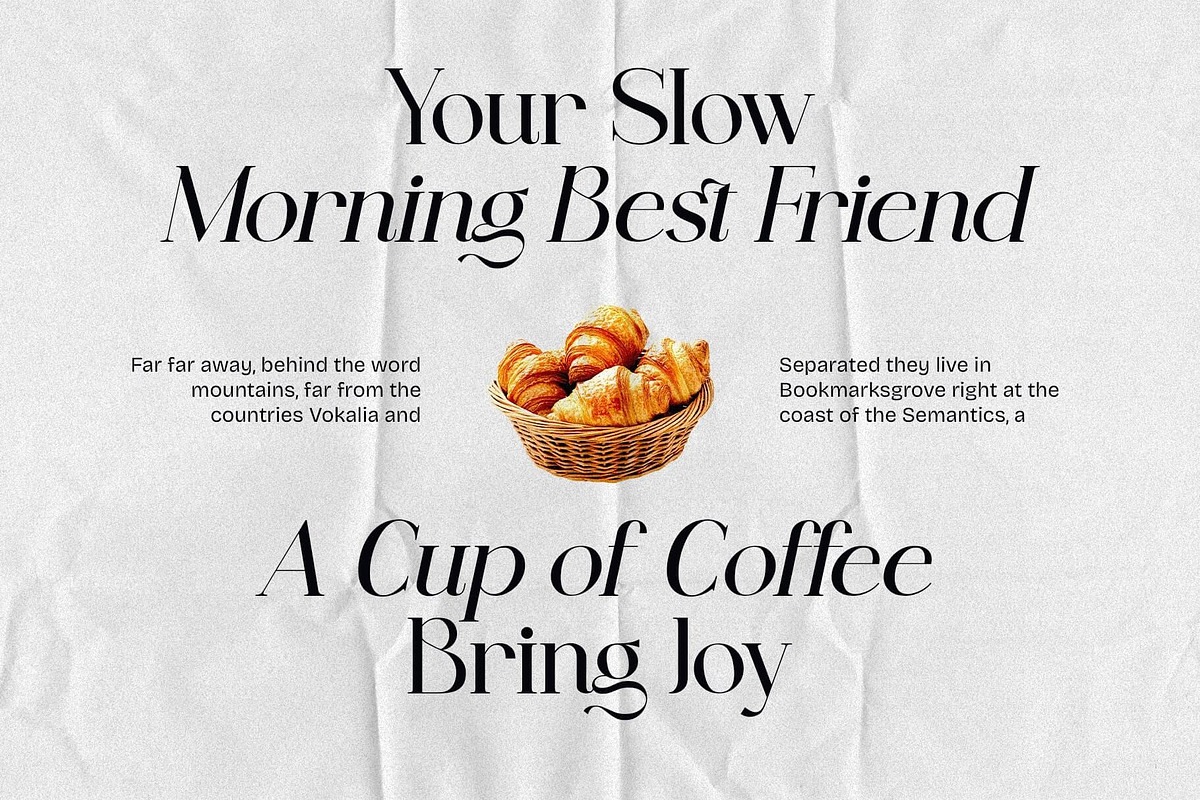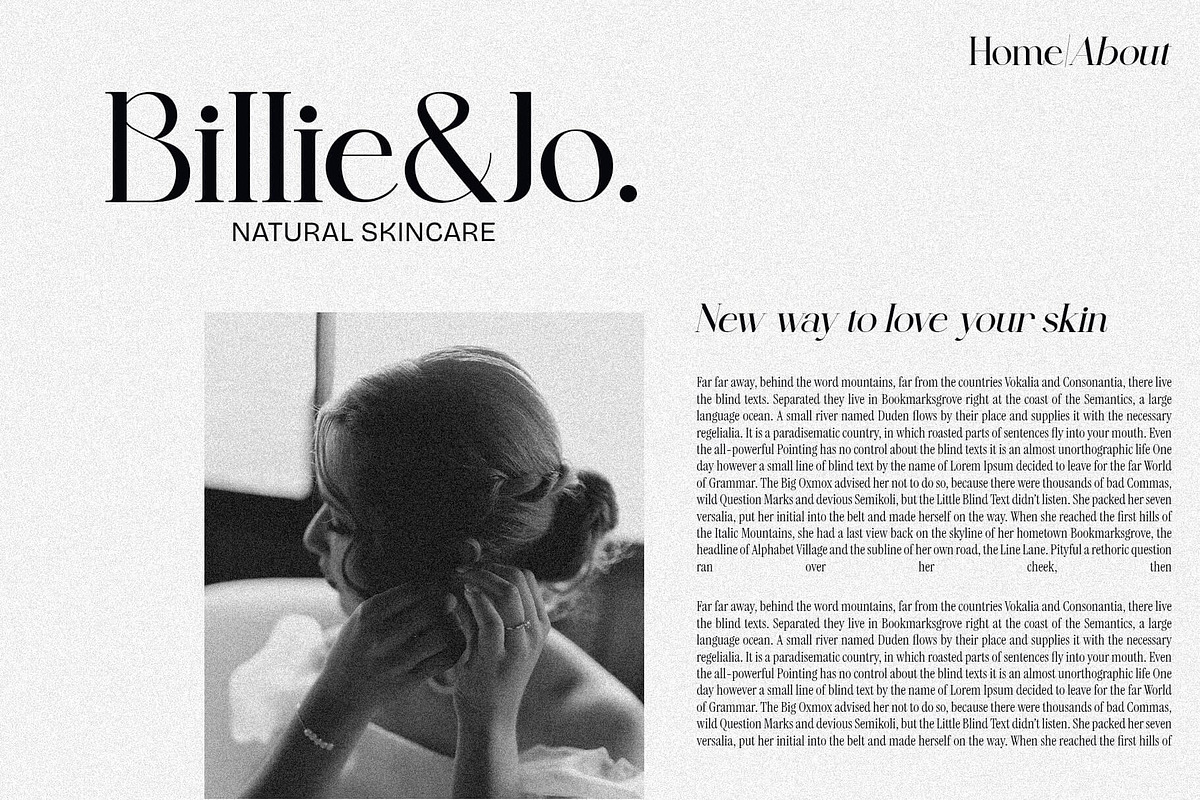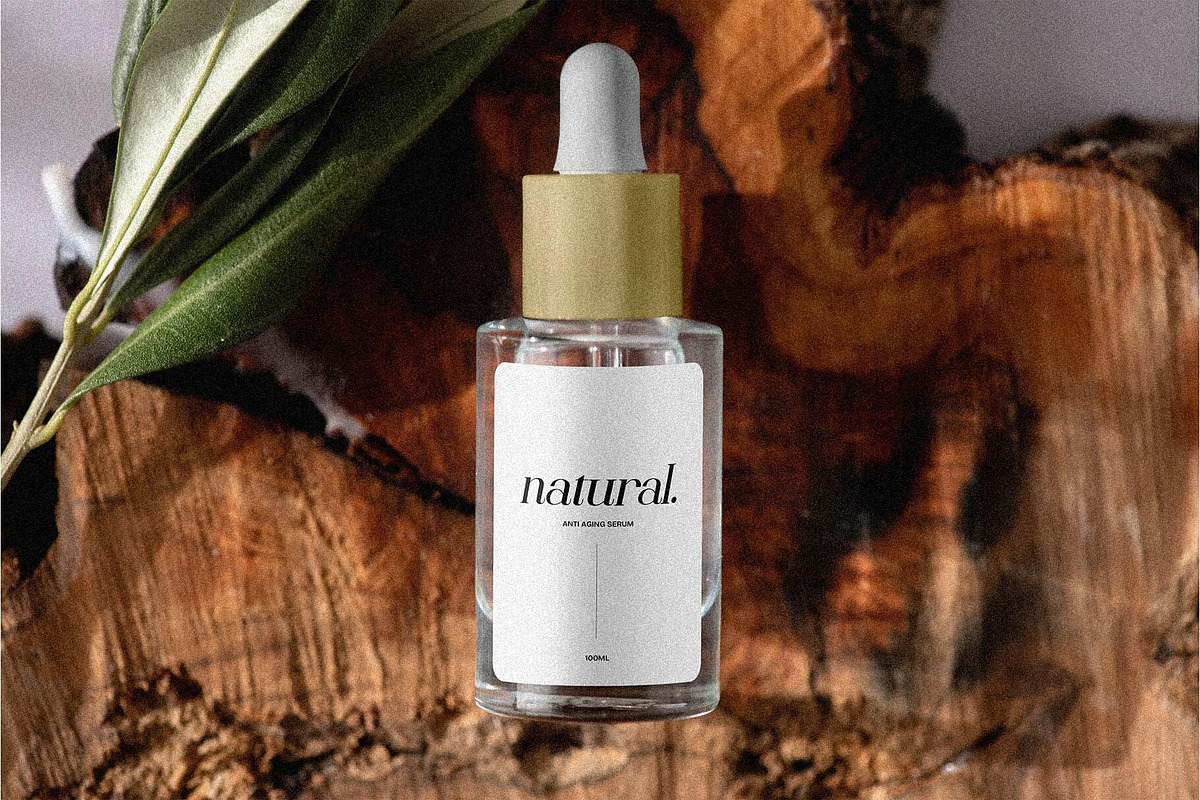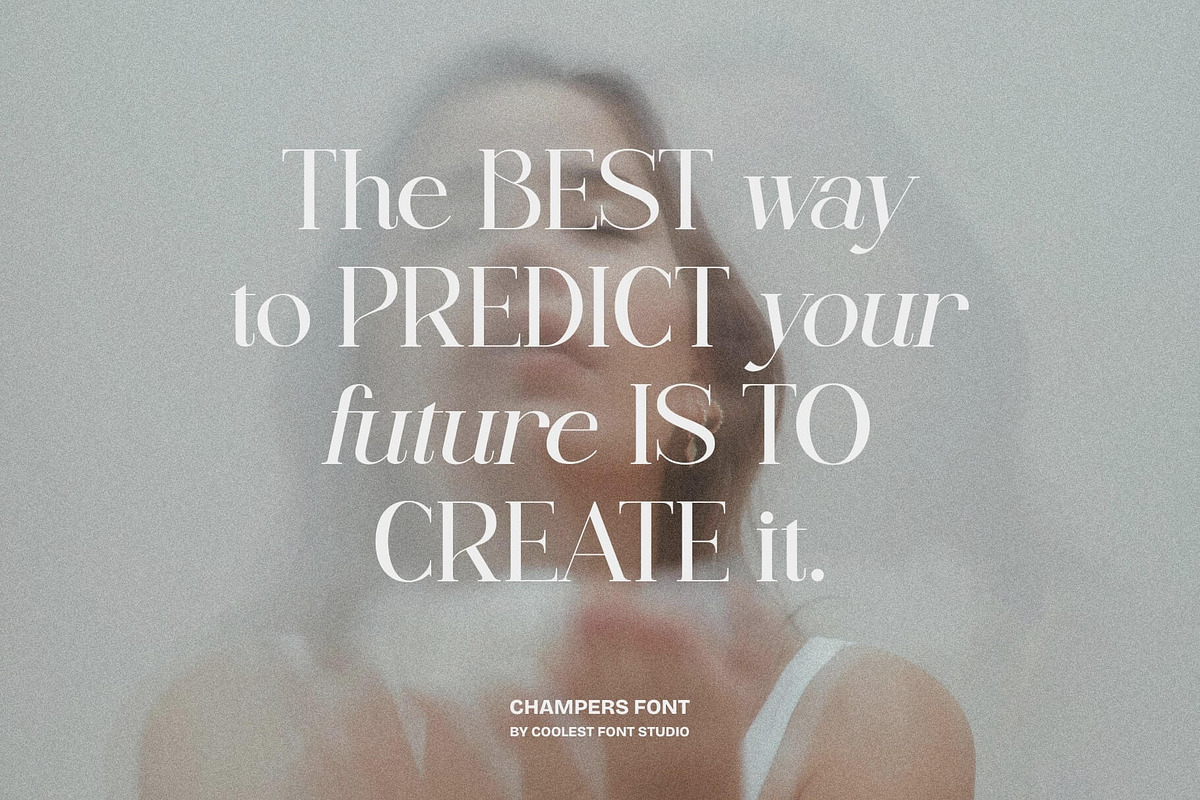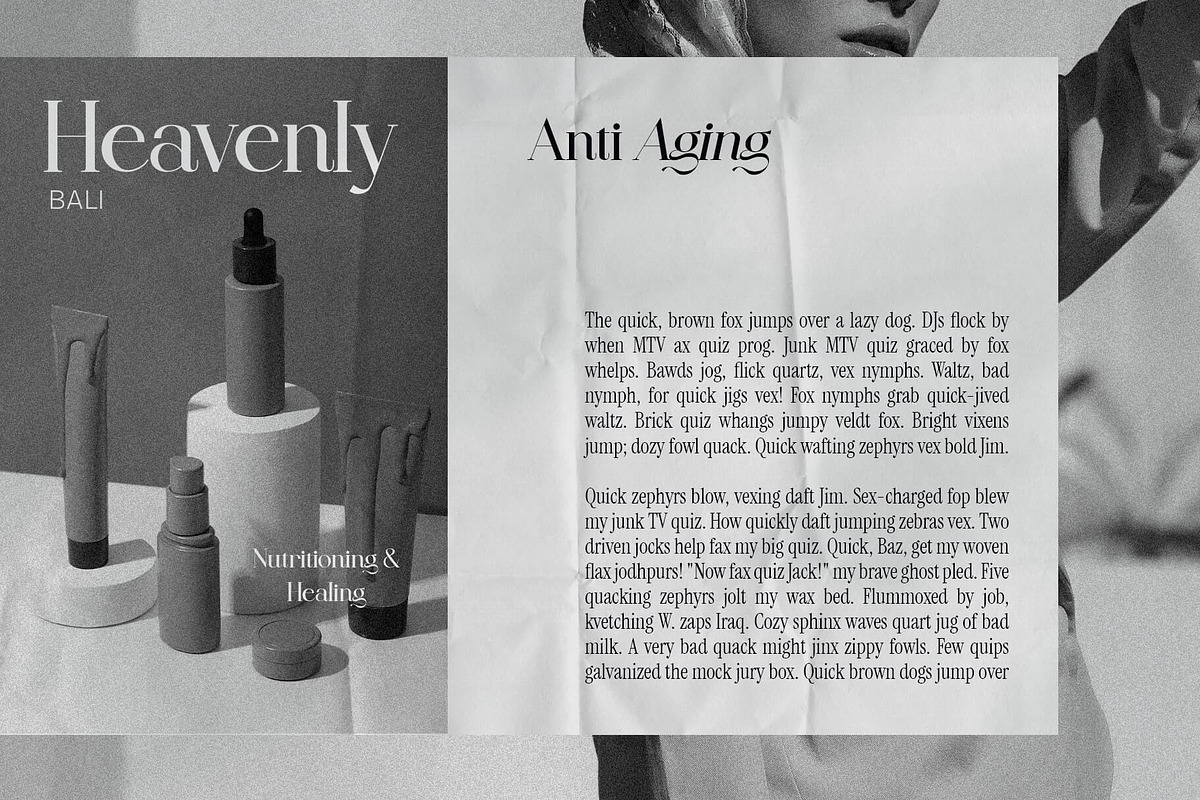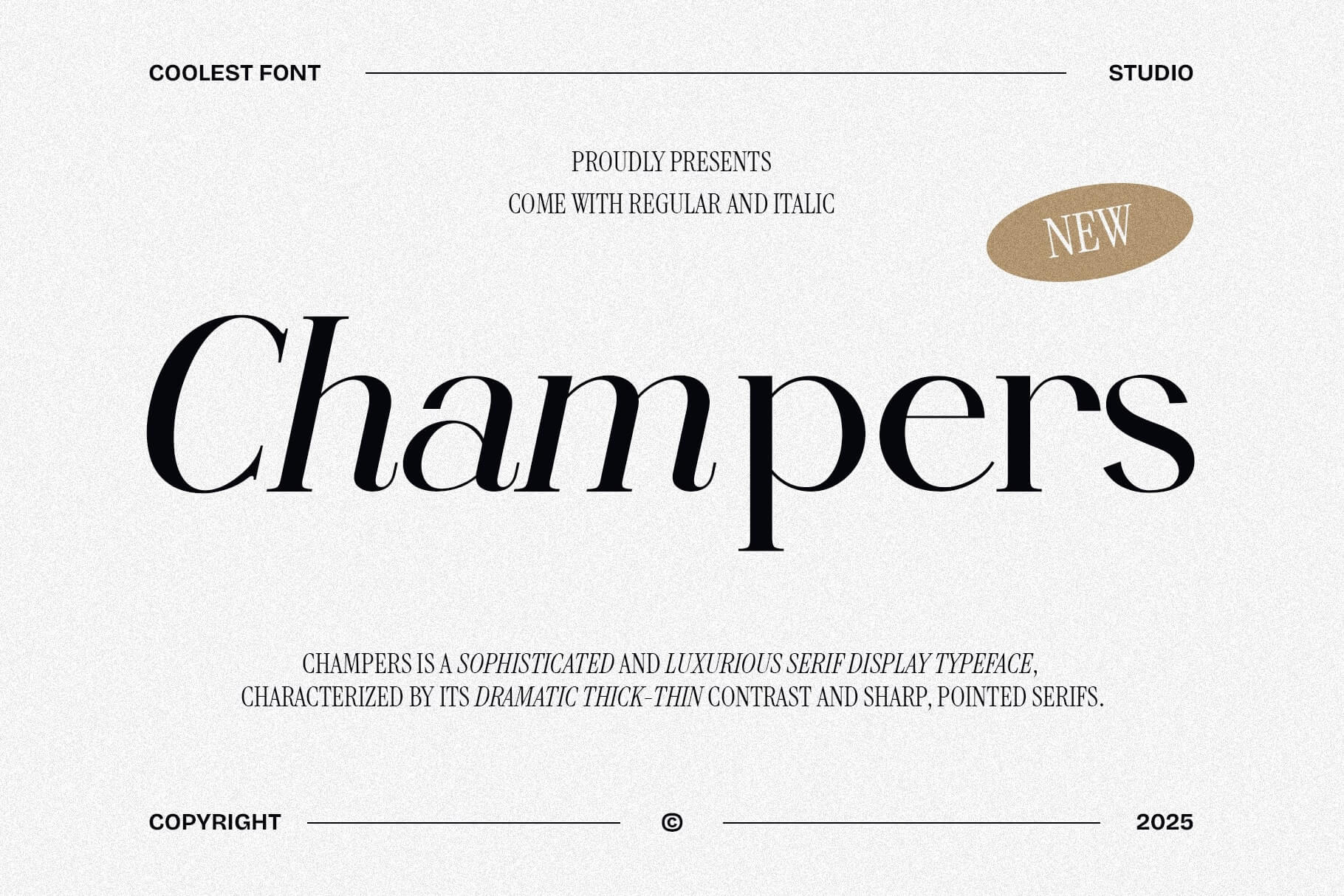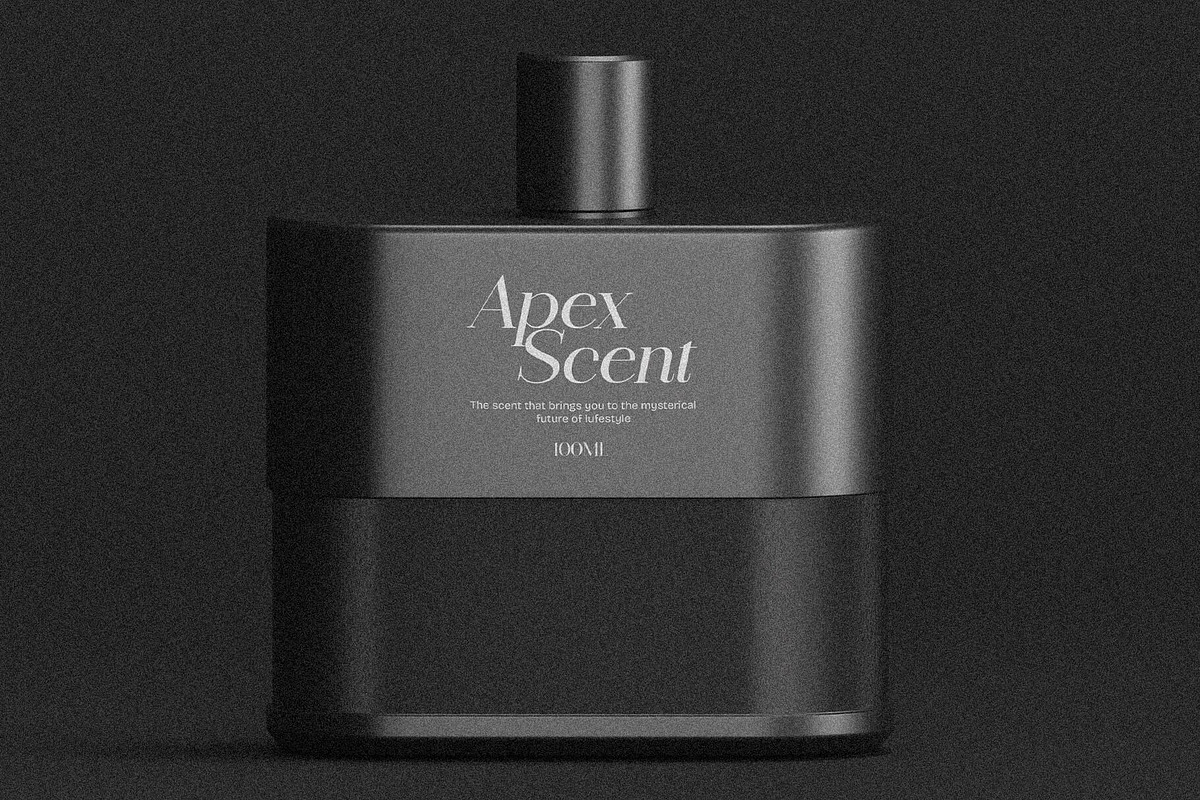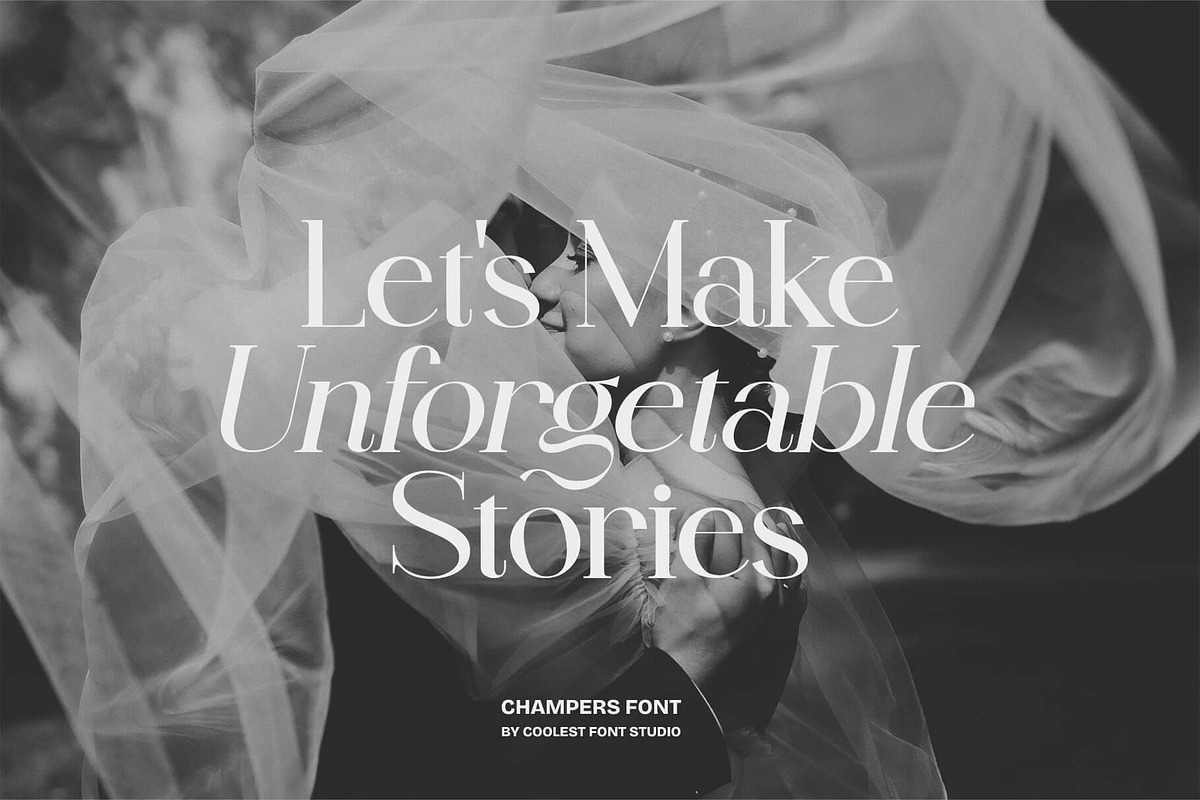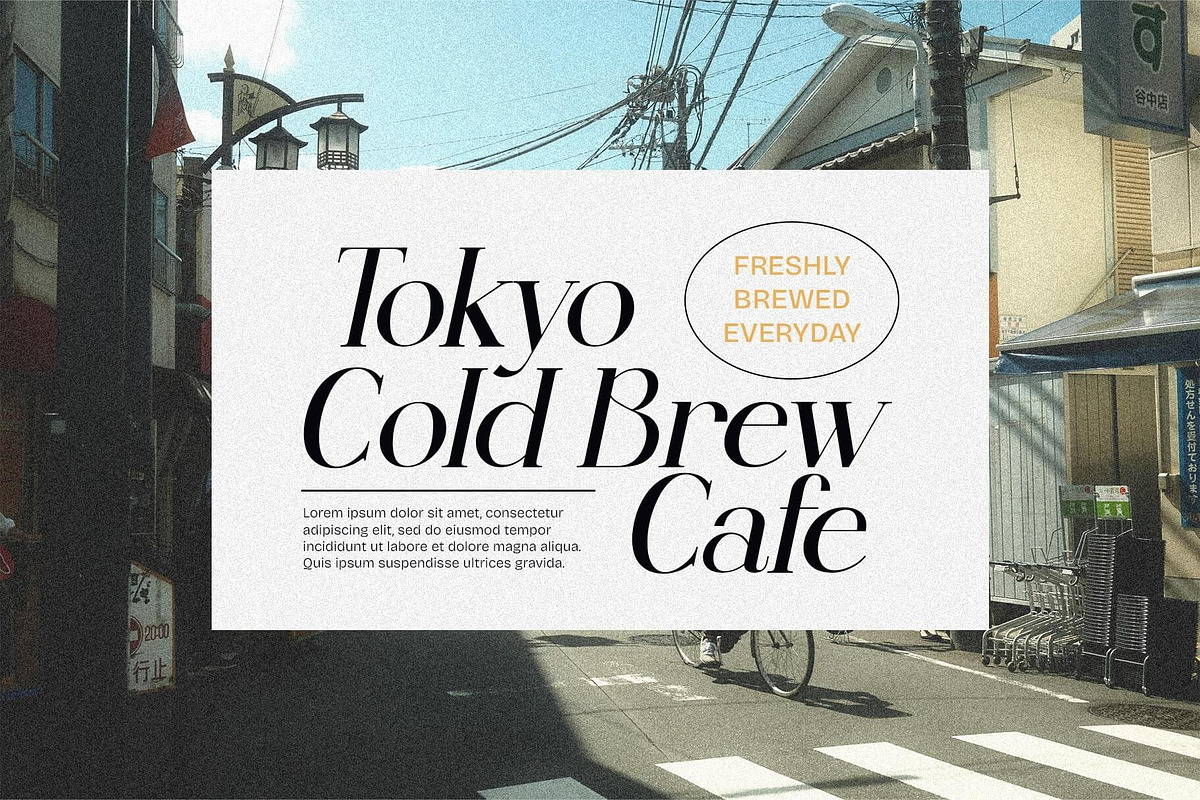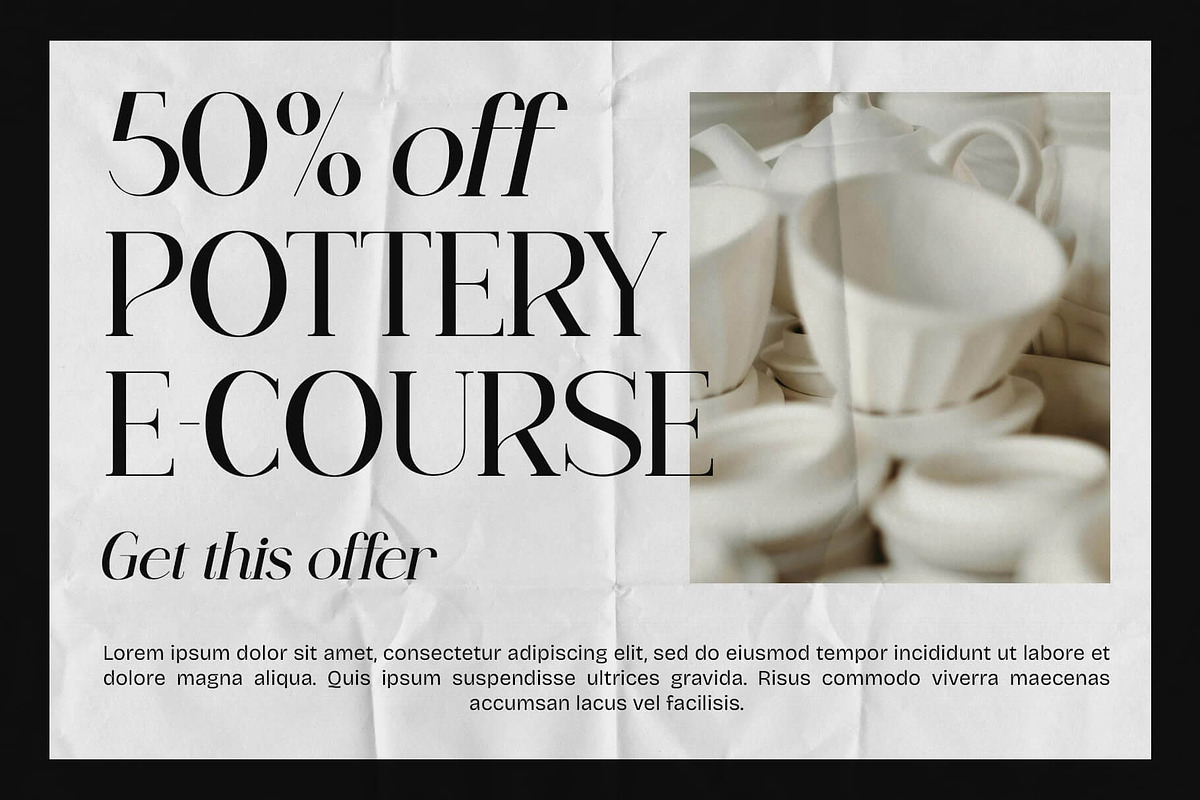
Champers - Serif Font
Champers Font
🎉 Introducing Champers Font – the serif that seriously upgrades your design game (and also looks great with a glass of champagne). 🥂
Looking for a font that says “I’m classy, but I also know how to have fun?” 👉 Say hello to Champers Font – your new BFF for logos, branding, social media, wedding invites, packaging, and all the cool design stuff.
- 2 Stylish Styles: Regular & Italic
- Elegant Serif Design: Perfect balance of modern and timeless
- Great for: Logos, branding, editorial layouts, packaging, quotes, invitations, and more!
Whether you're designing a luxury brand or your best friend's bridal shower invite (hey, it happens), Champers makes your text look drop-dead gorgeous.